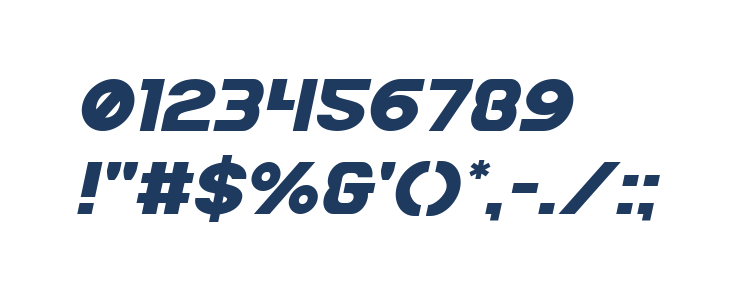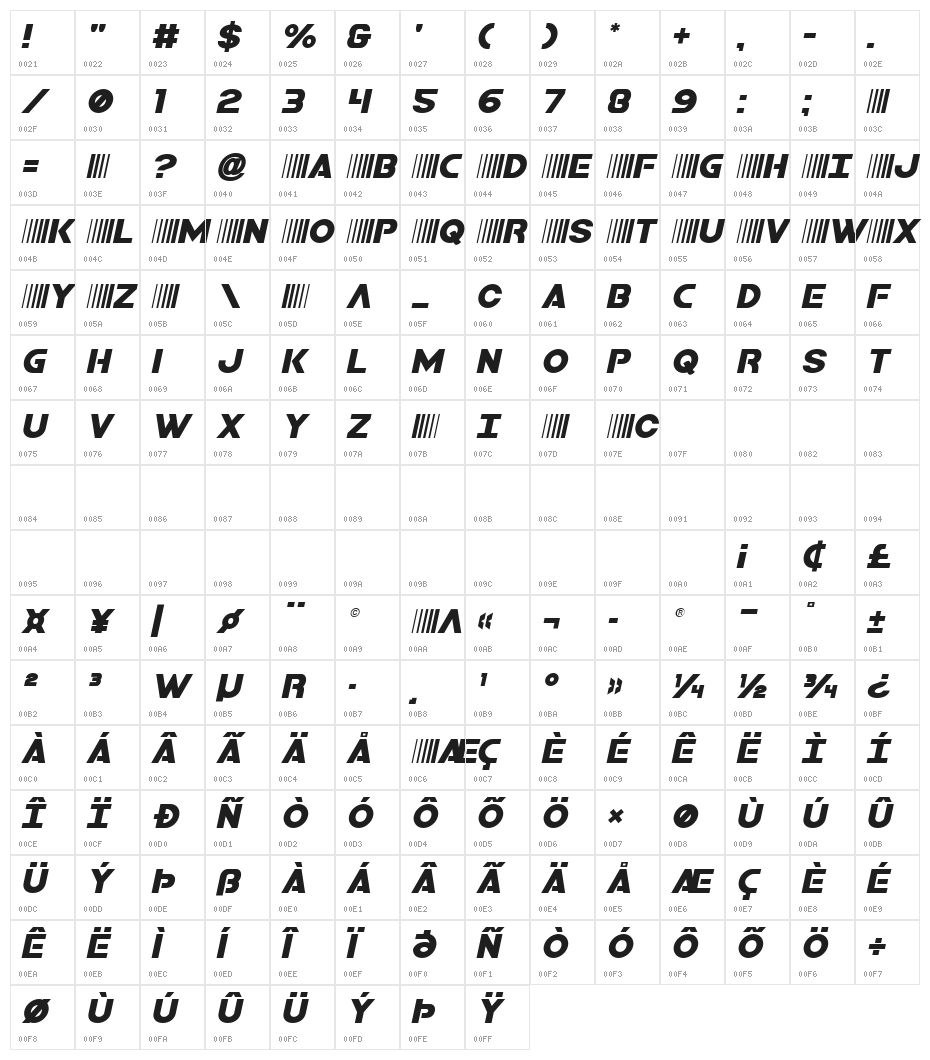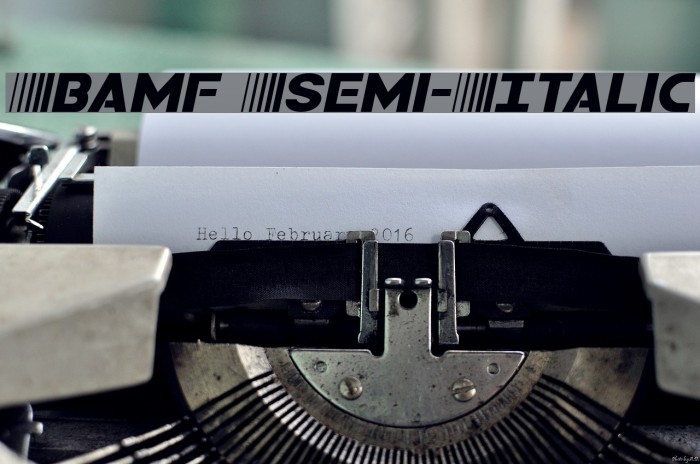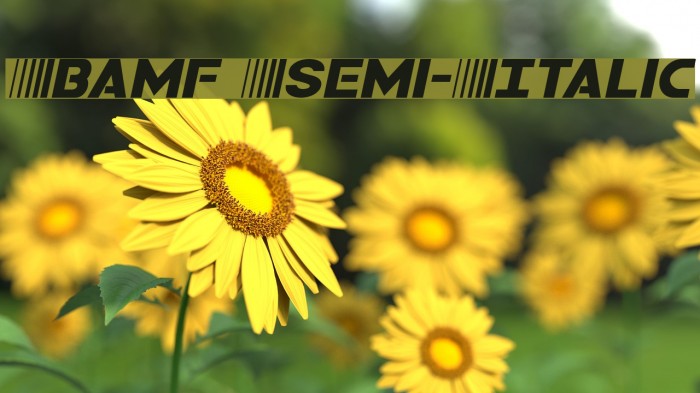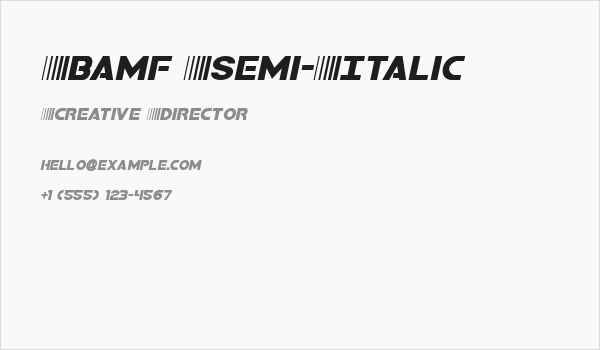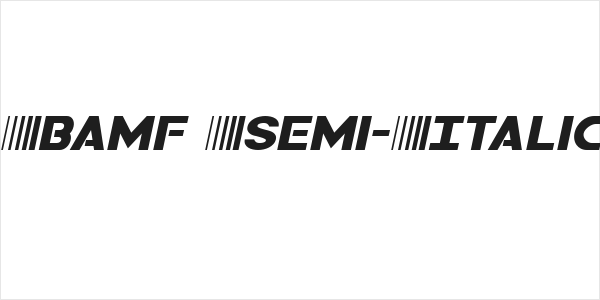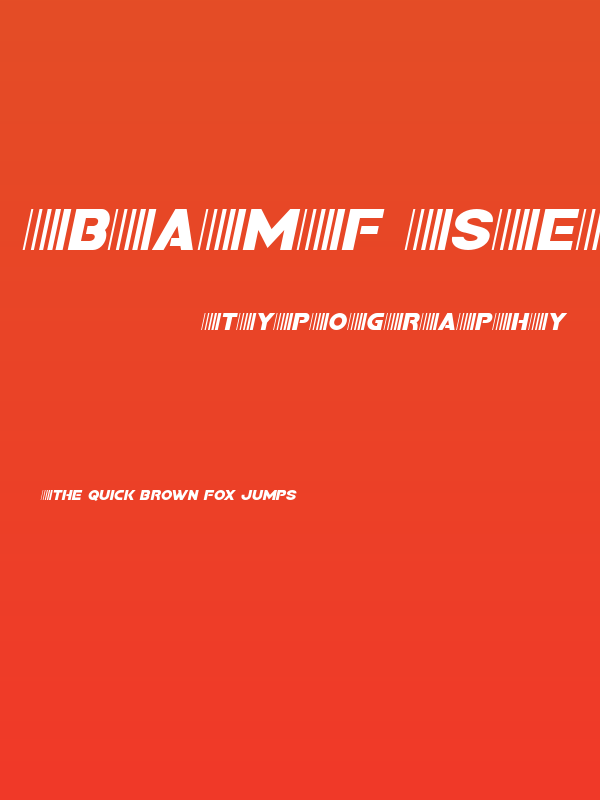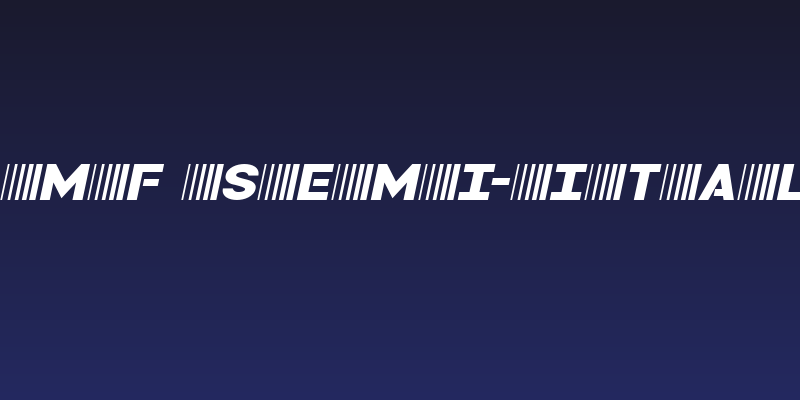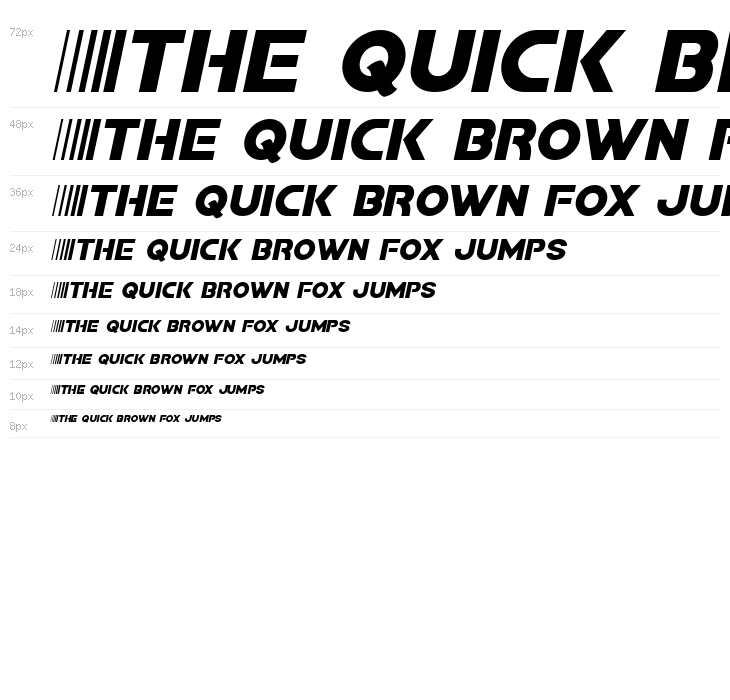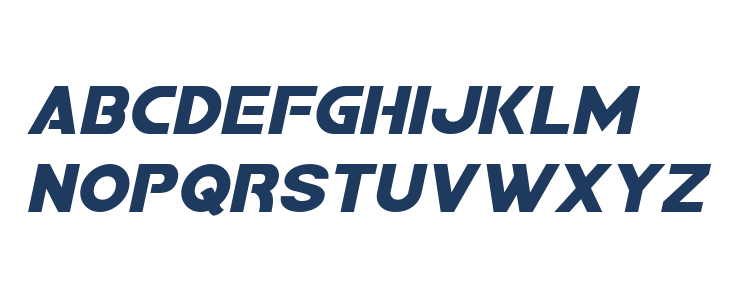
Bamf Semi-Italic Font
Bamf Semi-Italic Description
This font features a bold and dynamic style with a semi-italic slant, giving it a sense of movement and energy. The uppercase letters are strong and impactful, with a slight forward tilt that adds a modern touch. The numbers and special characters maintain this boldness, ensuring consistency across all elements. The design is clean yet striking, making it suitable for attention-grabbing headlines and titles. Its geometric shapes and smooth curves contribute to a contemporary aesthetic, while the italic angle adds a unique flair.